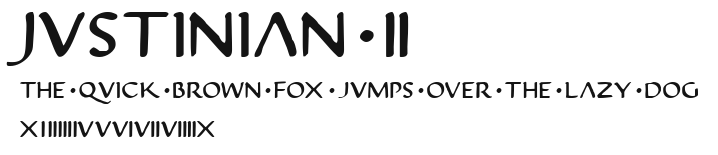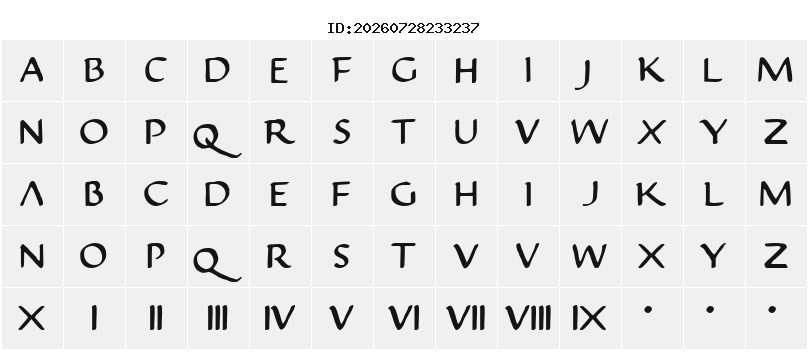
Justinian 2.ttf is a modern, elegant sans-serif font designed for ultimate readability and visual harmony. Perfect for branding, headlines, web design, and print materials.